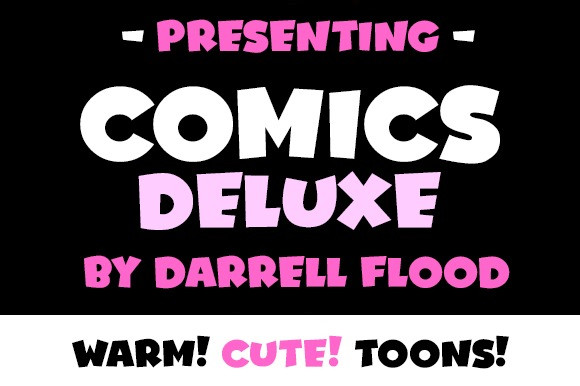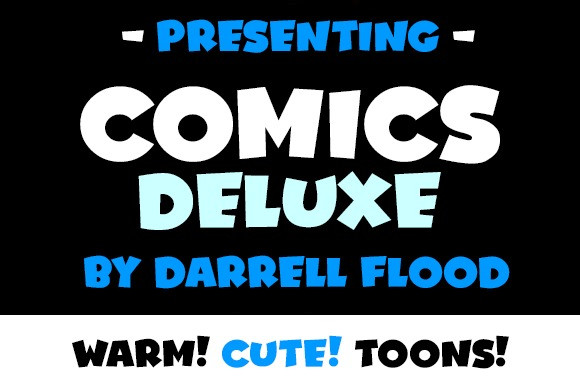
Comics Deluxe Font
Comics Deluxe Display Font, A bouncy, fun font in a cute, rounded cartoon style. Perfect for any family friendly purpose, where warmth and excitement are key! – cartoons, comics, animations, the sky’s the limit!